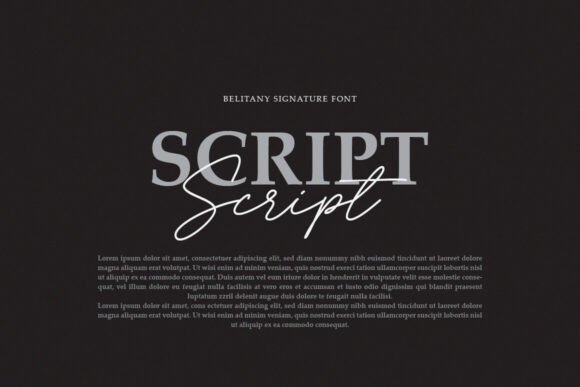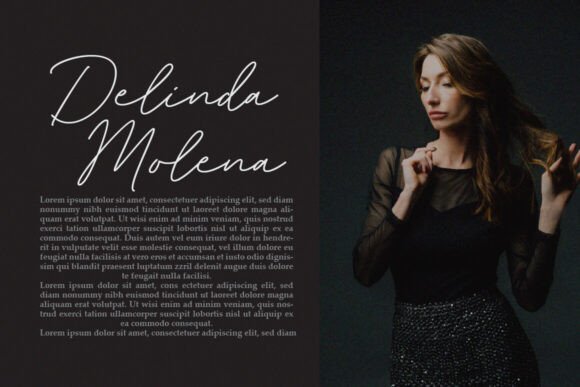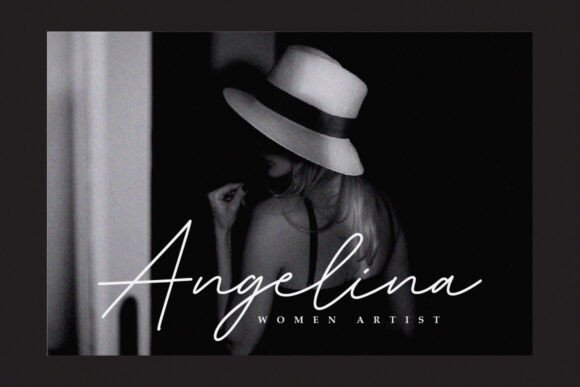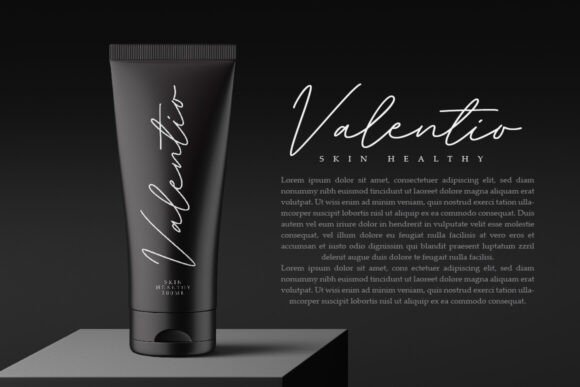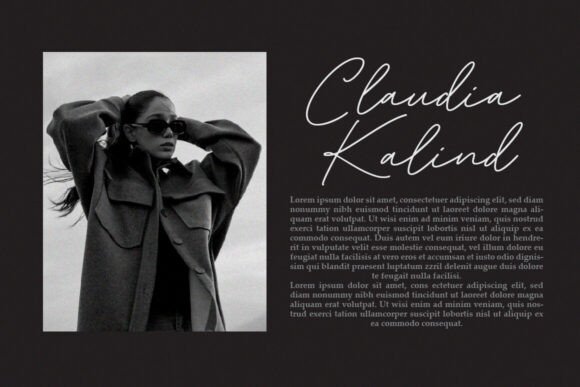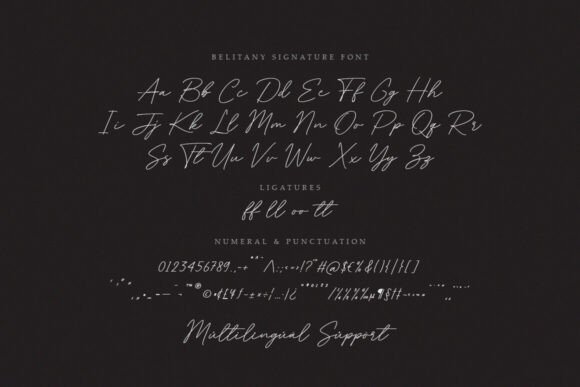
Introduction to Belitany Signature Font
Have you ever stumbled upon the perfect font for your design project, only to find it’s not the right fit after all? This has happened to many designers, including you, and it can be frustrating. But what if I told you that there’s a font that can elevate your creative projects to the next level? A font that combines elegance and sophistication, making it perfect for logos, invitations, and marketing materials.
Enter the Belitany Signature Font, a high-quality, handwritten font that’s sure to make your designs stand out. With its refined strokes and personal touch, this font is a valuable resource for designers who want to add an exclusive and creative flair to their work. Whether you’re looking for a free download or a premium font, Belitany Signature Font is a must-have for any design project that requires a unique and sophisticated look.
Key Features of Belitany Signature Font
- Unique, hand-drawn design ideal for creative projects, making it a valuable design resource.
- Transparent background, giving users the flexibility to place the font over any image or color, enhancing the overall visual impact of the design.
- Perfect for logos, branding, and other creative projects where a distinctive, signature font is required.
- Comes in a range of sizes, making it suitable for various design applications, from small text to large headings.
Honest Review: Belitany Signature Font
I recently had the opportunity to test the Belitany Signature Font, and I must say it’s been a delightful experience. As a designer, I’m always on the lookout for high-quality design resources that can elevate my creative projects. This font definitely fits the bill.
What works well with the Belitany Signature Font is its versatility. It’s perfect for a wide range of design applications, from logo designs to social media graphics. The font is available for free download, which is a huge bonus for designers on a budget. I also appreciate the transparent background, which makes it easy to work with.
- ✨ High-quality design with crisp lines and clear typography
- ✨ Versatile font suitable for various design applications
- ✨ Transparent background for easy editing
However, there are a few limitations to note. The font is not suitable for body text, as it’s a decorative font and may not be readable in larger quantities. Additionally, the font may not be compatible with all operating systems or software.
Overall, I’m impressed with the Belitany Signature Font. It’s a great addition to any designer’s toolkit, and I would highly recommend it for creative projects that require a touch of elegance and sophistication.
The Belitany Signature Font is ideal for use in logos, business cards, and other branding materials. It’s also suitable for creating eye-catching graphics, social media posts, and promotional materials.